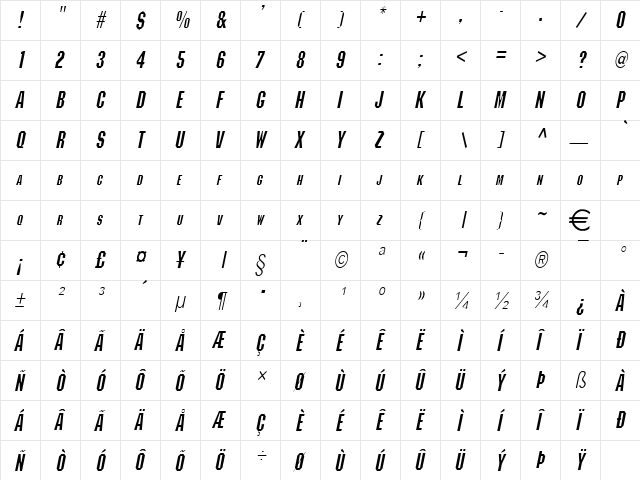
BlockCondensed Italic Font Preview
BlockCondensed Italic
Design Context for BlockCondensed Typeface
BlockCondensed takes a measured approach to typography — its balanced proportions and neutral character make it a reliable workhorse for both digital and print work. Its italic angle brings a sense of urgency and motion to the letterforms. Its narrow stance lets it pack a punch even in space-constrained designs.
Pro Tip: Use BlockCondensed for emphasis, pull quotes, and subheadings where its slanted energy can add rhythm to the layout.